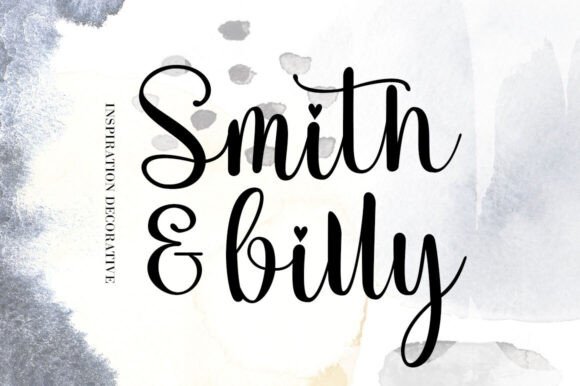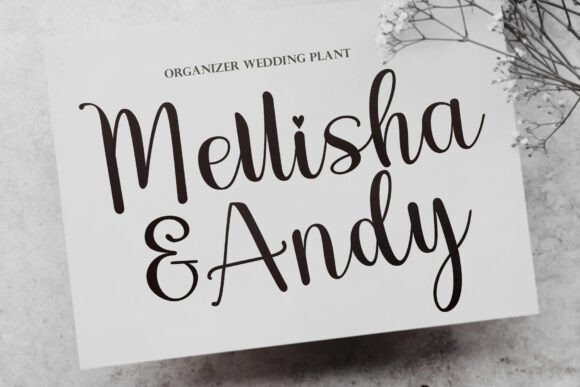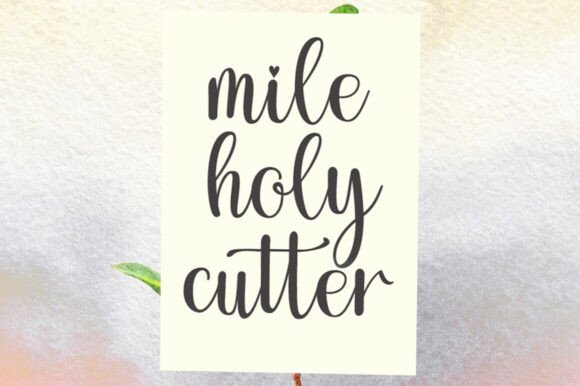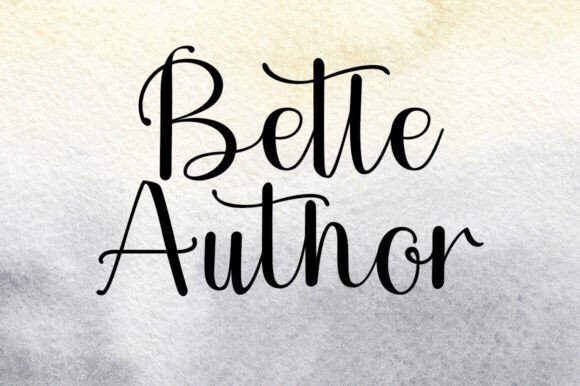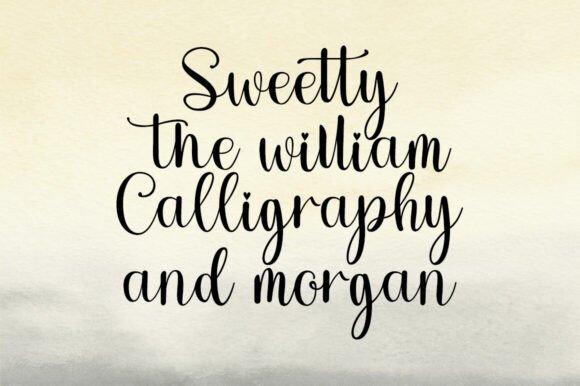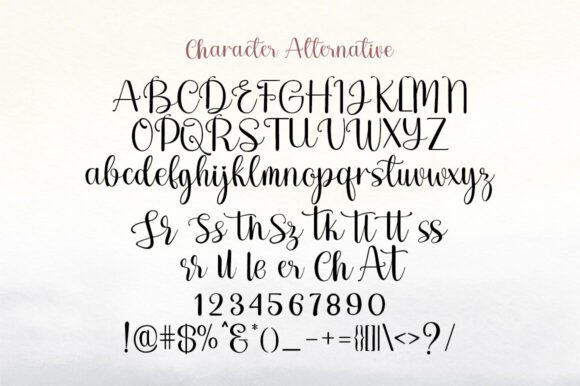
Introduction to Sky Script Font
Introducing Sky Script, a lovely and timeless handwritten font.
Key Features of Sky Script Font
Why Choose Sky Script Font?
Sky Script Font offers exceptional quality and versatility, making it a valuable addition to your design toolkit. Whether you’re creating for personal projects or commercial use, Sky Script Font delivers professional results.